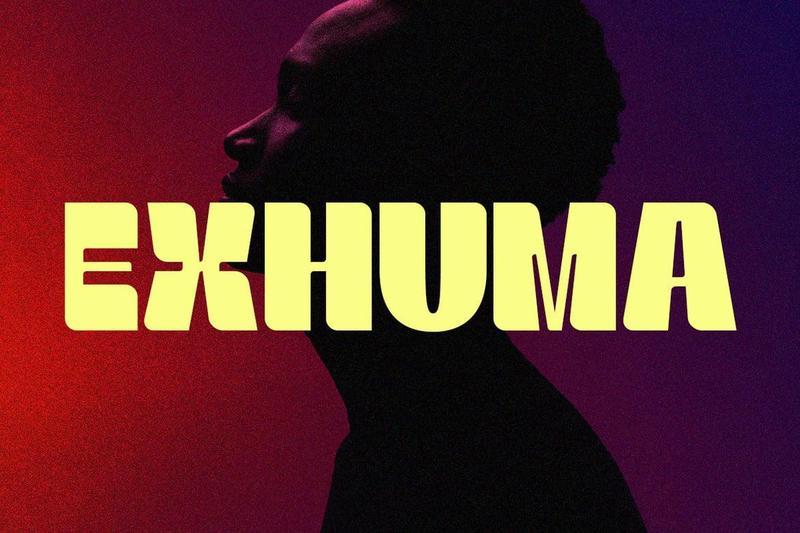
**Exhuma** is a bold experimental display typeface featuring unique letter constructions, geometric forms, and contemporary styling. Designed to create memorable visual impact, Exhuma excels in branding systems, fashion campaigns, album covers, editorial headlines, and modern marketing materials. Its distinctive personality makes every headline instantly recognizable.
**Features :**
* Experimental display design
* Strong geometric construction
* Uppercase & lowercase
* Creative alternates
* Display optimized spacing